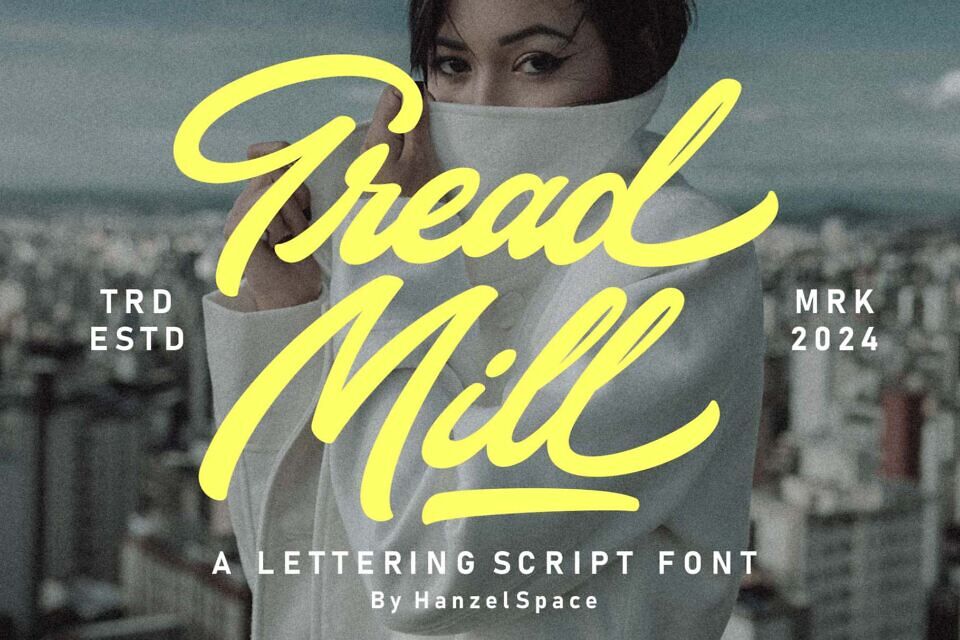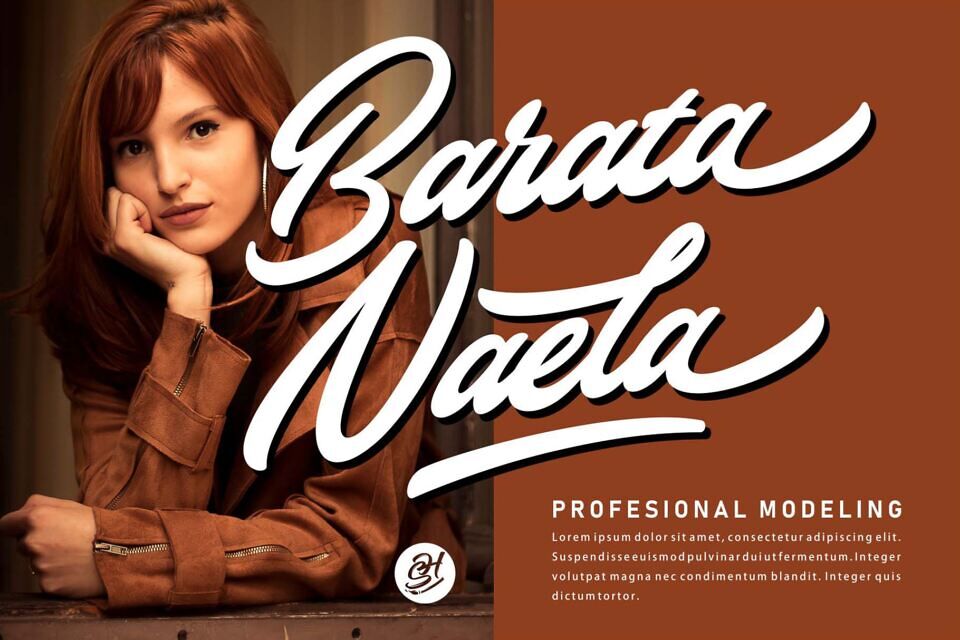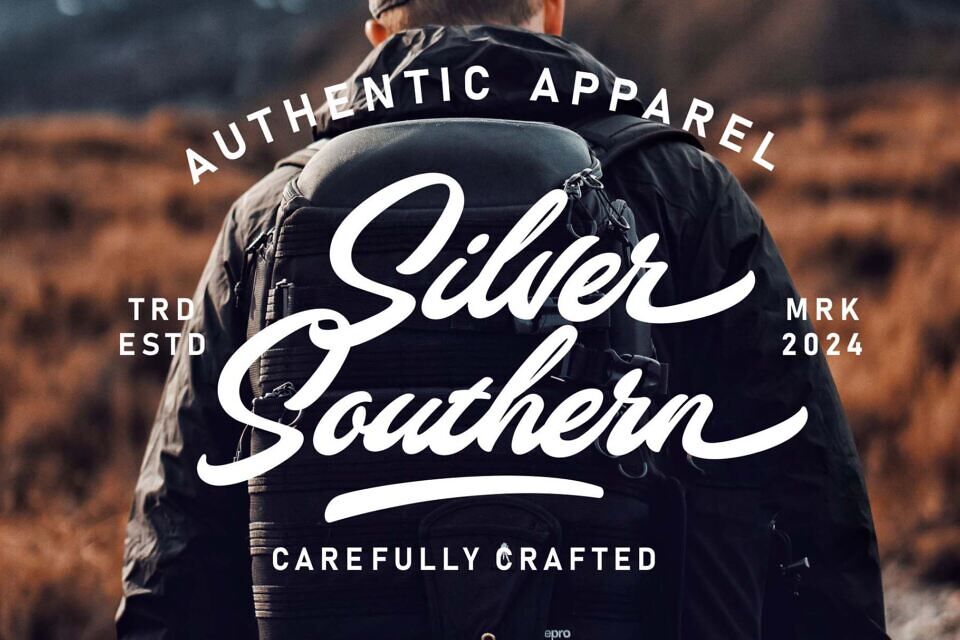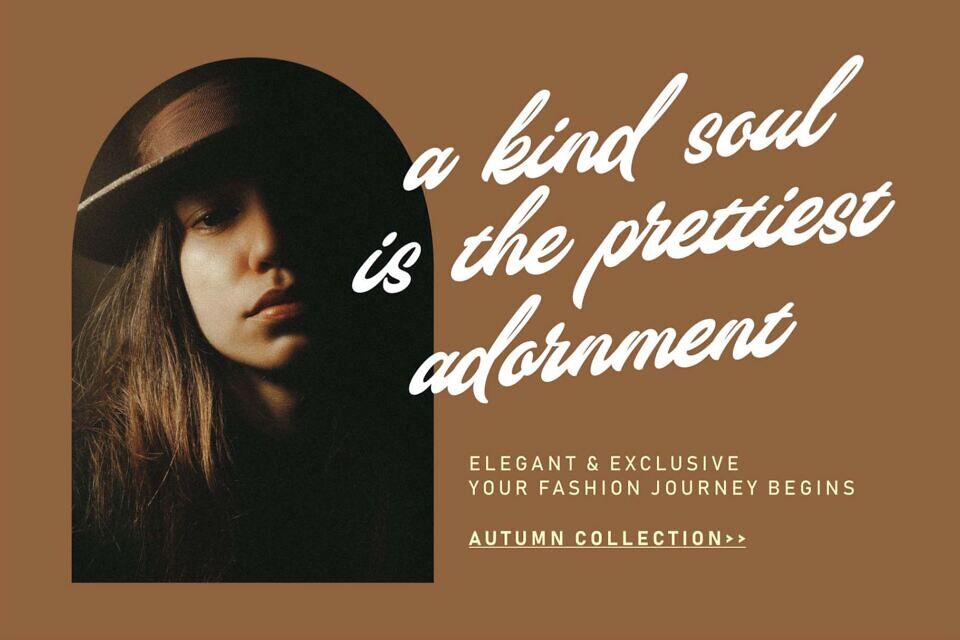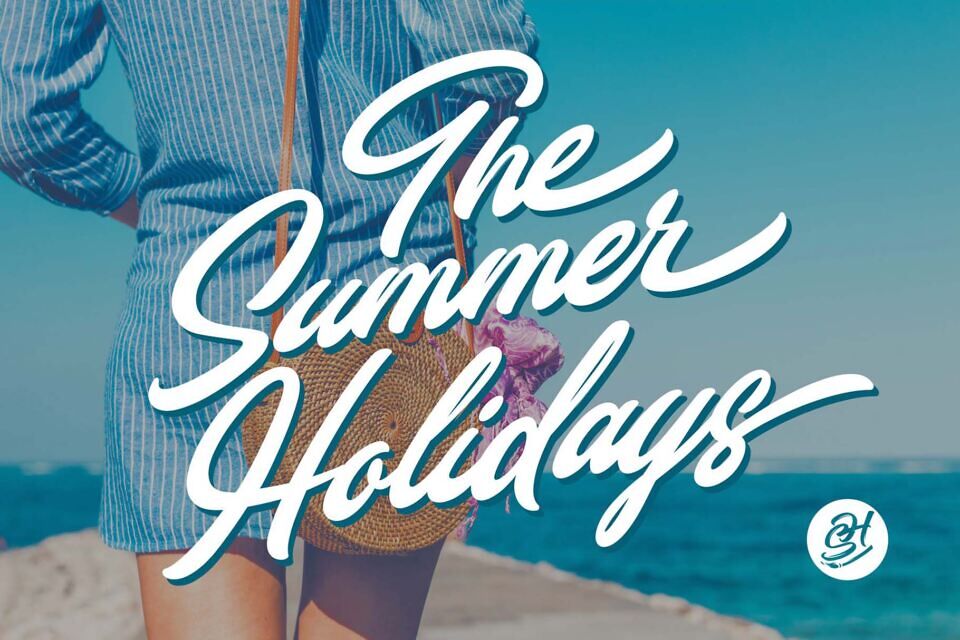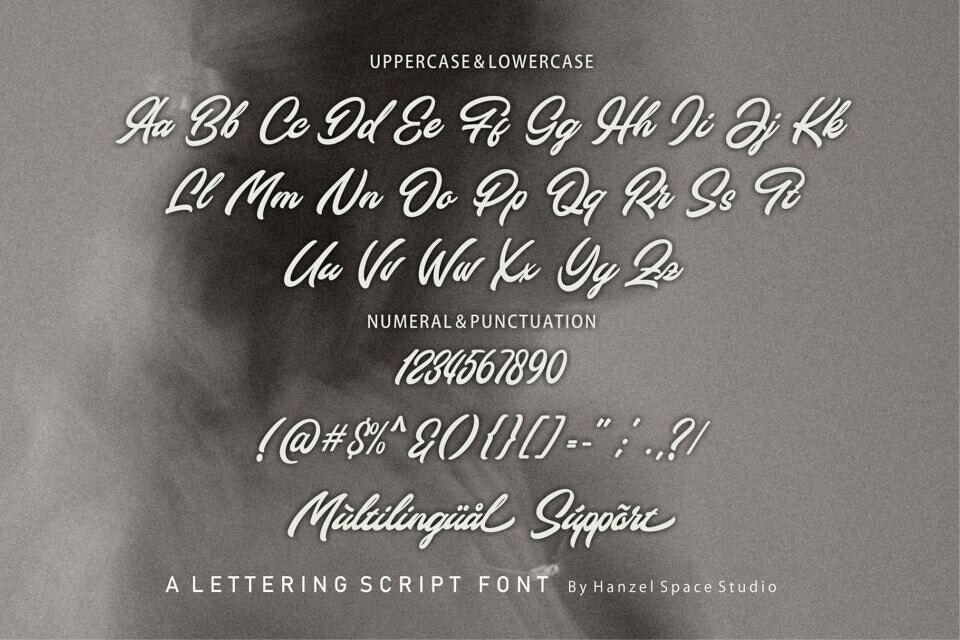
Tread Mill Font
Tread Mill script is a Lettering Font with a touch of vintage look and feel. The swashes makes this font looks great for Lettering which you can create in a sec!
This type of font perfectly made to be applied especially in logo, headline, signage and the other various formal forms such as invitations, labels, logos, magazines, books, greeting/wedding cards, packaging, fashion, make up, stationery, novels, labels or any type of advertising purpose.